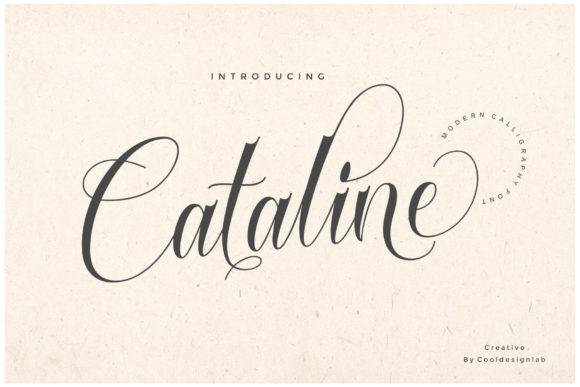
Behold, the Cataline Script Font, a modern calligraphy font that will ignite your creativity and captivate your audience. Its elegant strokes and delicate curves bring a touch of sophistication to any project. Unleash your imagination and let the Cataline Script Font guide you towards creating captivating designs that leave a lasting impression.
With its decorative characters and a dancing baseline, the Cataline Script Font adds a touch of whimsy and playfulness to your projects. Perfect for invitations, greeting cards, branding materials, business cards, quotes, and posters, this font is a versatile tool that can elevate the look and feel of your work.
Step into a world of endless possibilities with the Cataline Script Font. Its modern style blends seamlessly with a classic touch, making it the perfect choice for projects that demand elegance and charm. Let your creativity soar as you explore the limitless applications of this versatile font.
Immerse yourself in the beauty of the Cataline Script Font and watch as your designs come to life with a newfound allure. Its captivating characters and graceful flow will transform your projects into masterpieces that capture hearts and minds. Embrace the allure of the Cataline Script Font and embark on a creative journey like no other.